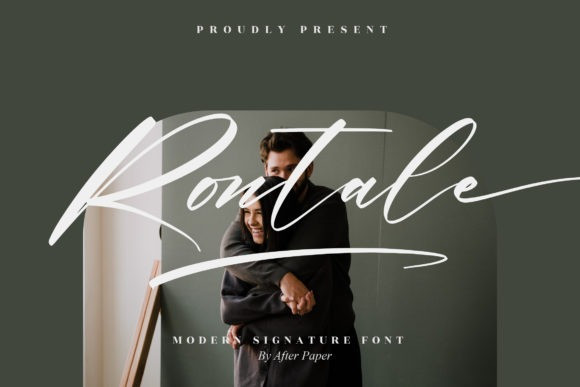
Rontale Font
Rontale Script Font is a lovely and timeless handwritten font. It is the best choice for creating eye catching logos, branding and quotes. This font is PUA encoded which means you can access all of the glyphs and swashes with ease!